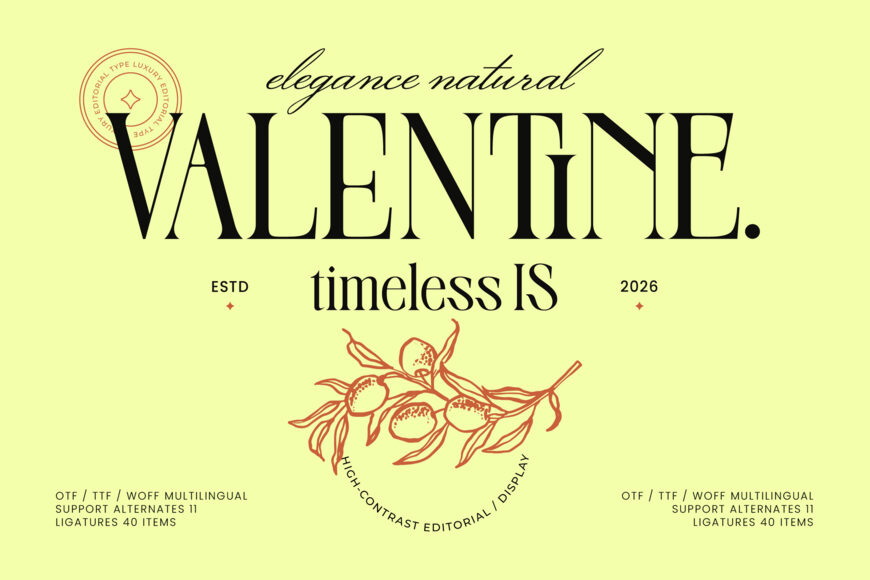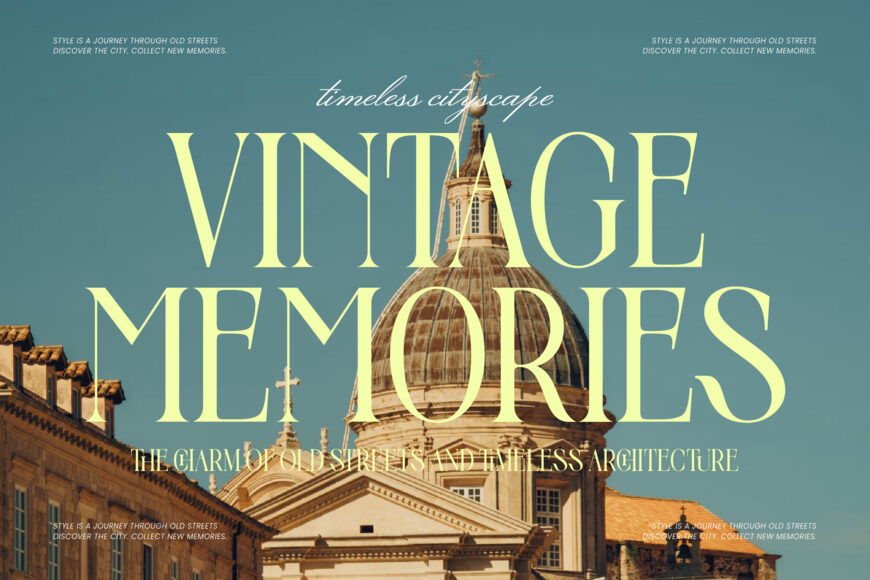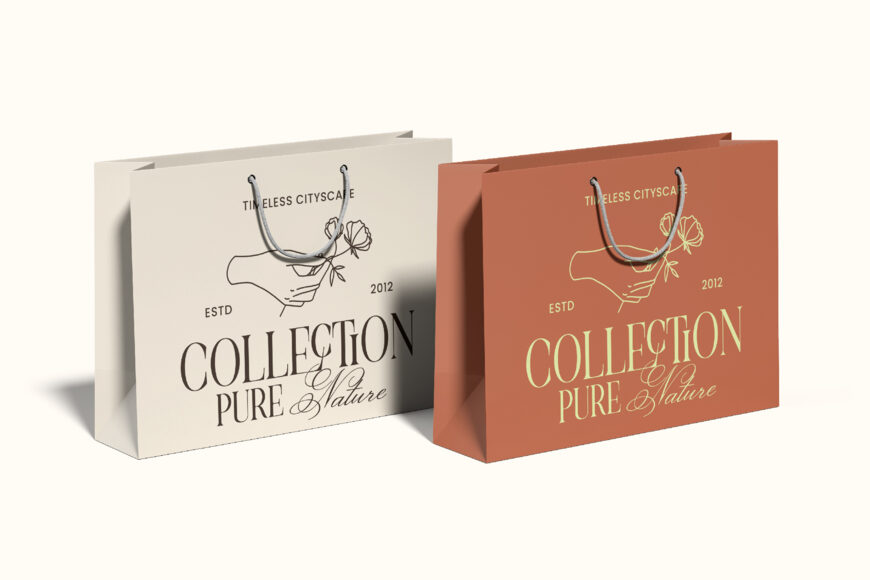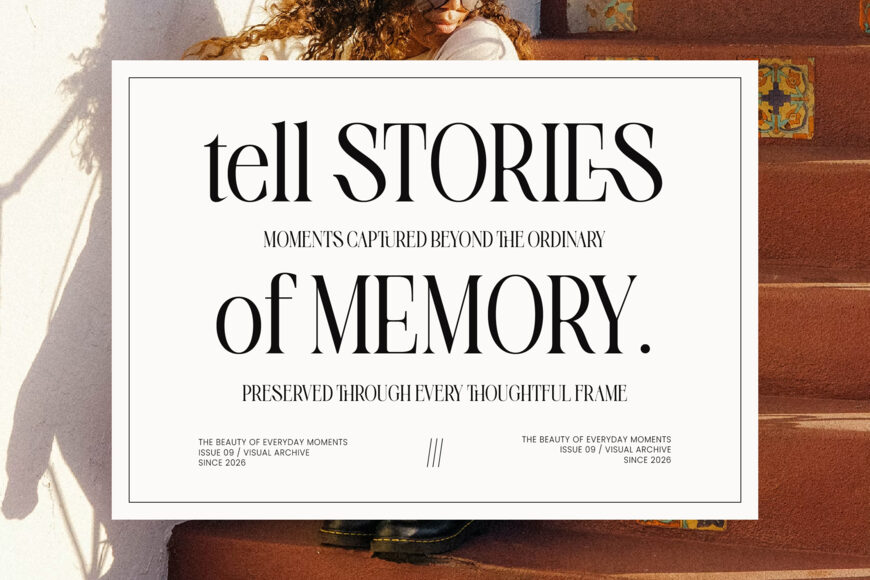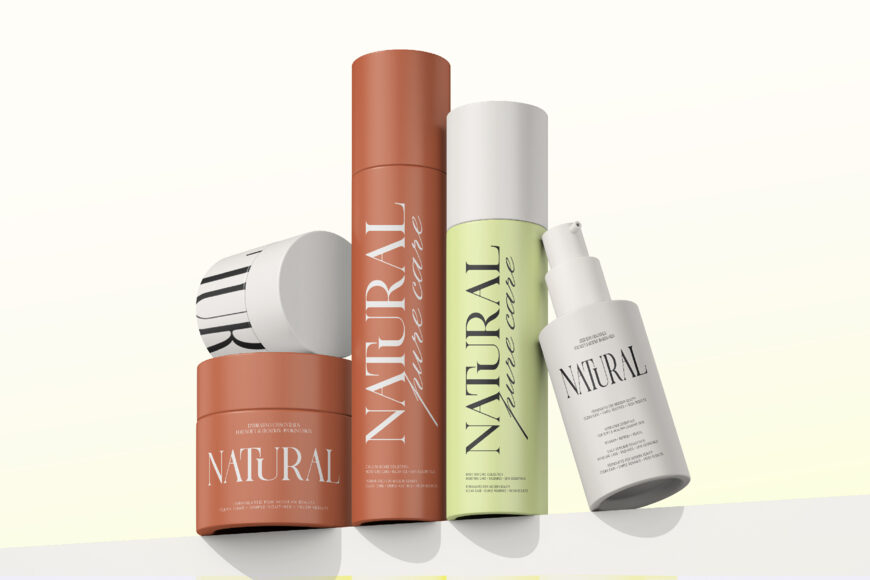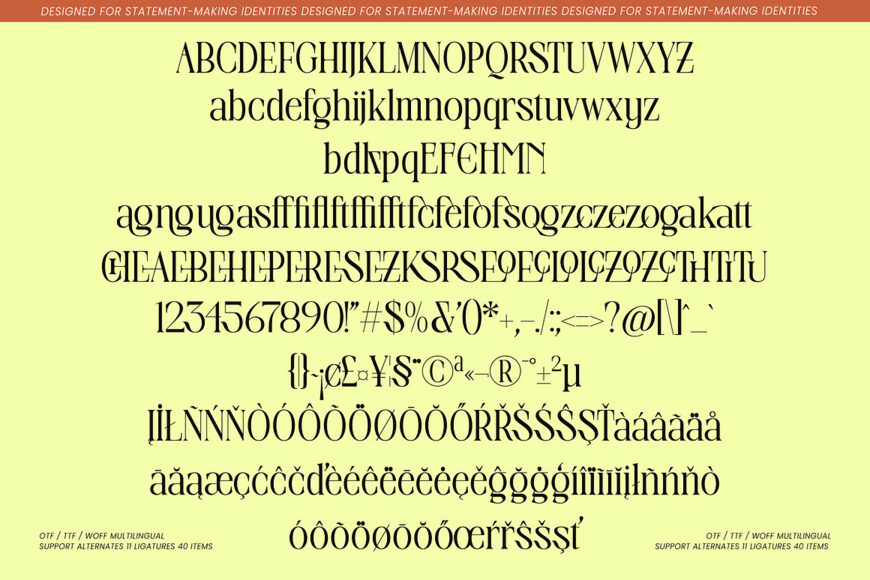
Elegance Natural Valentine Font
Elegance Natural Valentine is a high-contrast editorial display serif designed to bring timeless sophistication, refined luxury, and fashion-forward elegance into modern typography. Inspired by luxury magazines, premium beauty branding, European editorial design, and contemporary fashion campaigns, this typeface combines graceful contrast with carefully crafted letterforms that feel both classic and modern.
Perfect for luxury branding, beauty products, fashion editorials, boutique businesses, magazine covers, premium packaging, wedding stationery, and high-end visual identities, Elegance Natural Valentine transforms typography into a statement of timeless refinement.